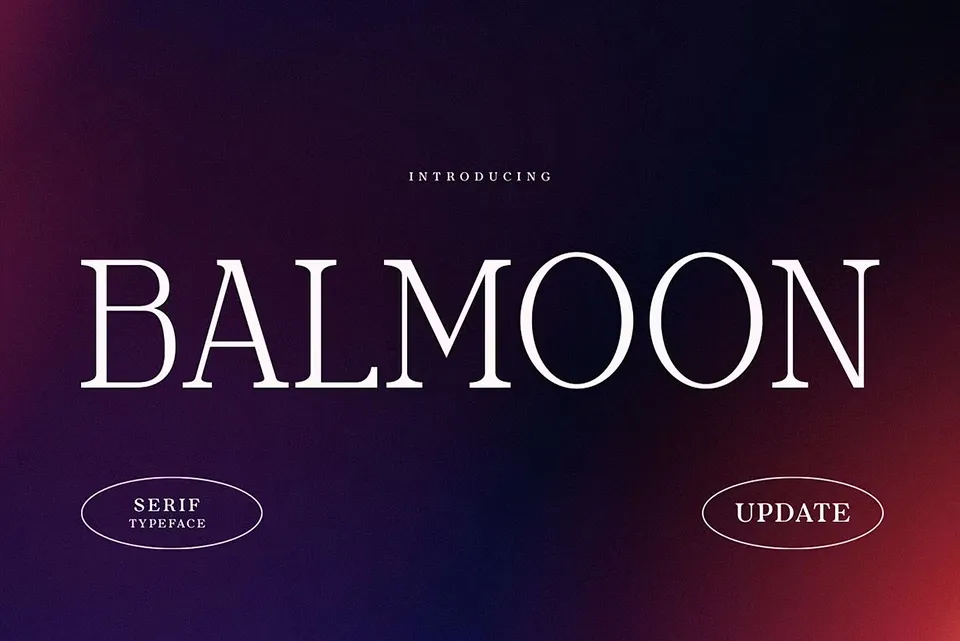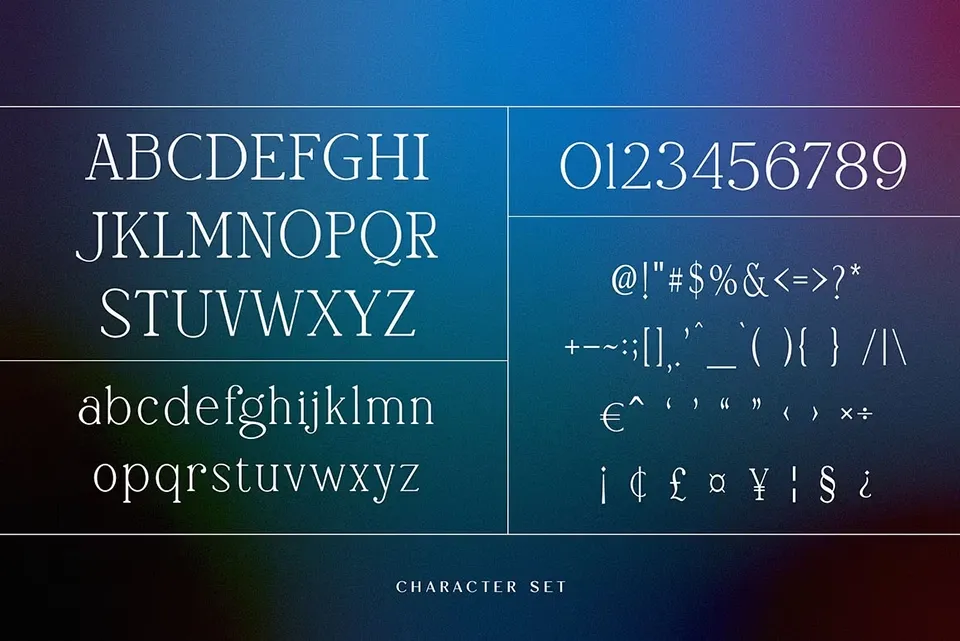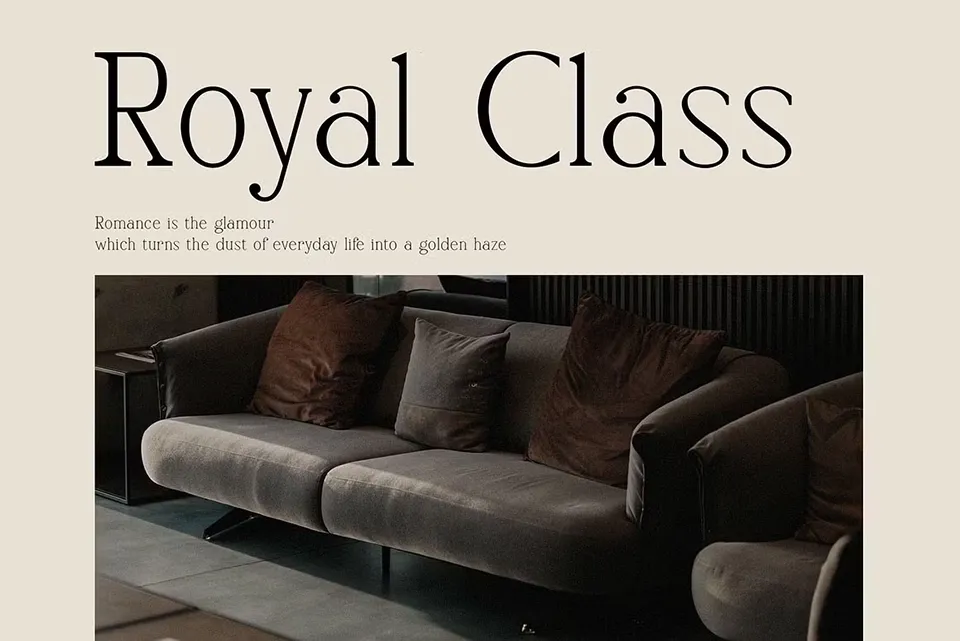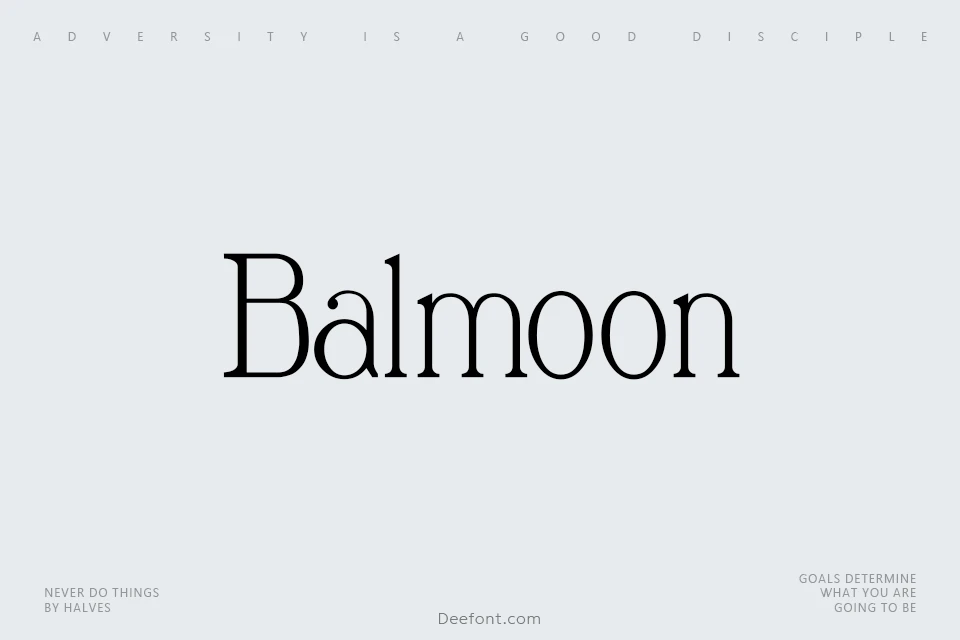
Balmoon Font
Balmoon Font is a modern serif typeface characterized by its clean lines and elegant ligatures, making it ideal for contemporary designs, beauty, and fashion projects. Crafted with meticulous attention to detail, Balmoon brings timeless sophistication to any creative work.